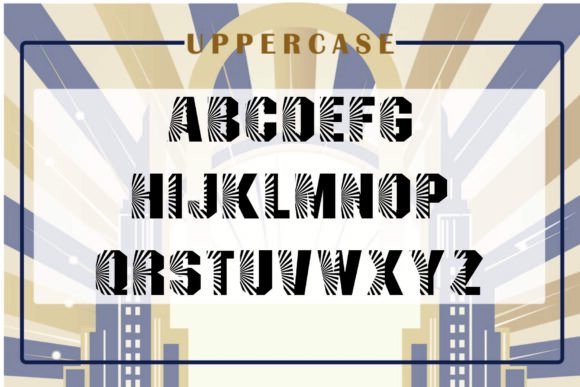
Introduction to Deco Ray Font
Deco Ray – Art Deco Font with Radiant Style Step into the glamorous world of Art Deco with Deco Ray, a bold display font inspired by the golden age of design—think shining city lights, geometric elegance, and the iconic architecture of the 1920s–30s.
Every letter in Deco Ray features a dynamic rayburst pattern that creates movement, power, and excitement This makes the font a perfect choice for headlines and branding that needs to command attention.
Key Features of Deco Ray Font
Why Choose Deco Ray Font?